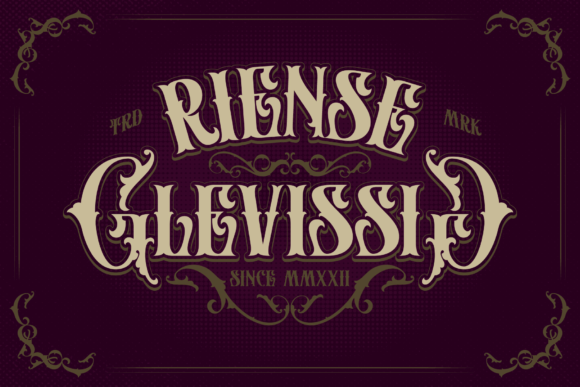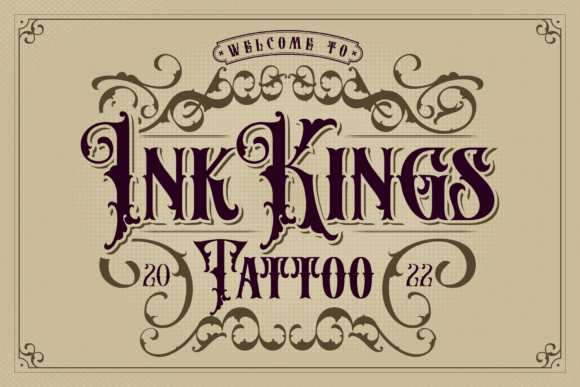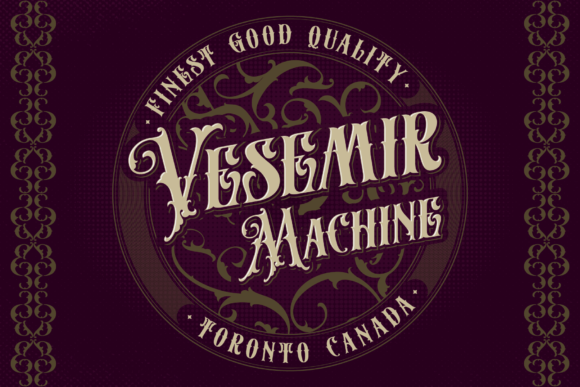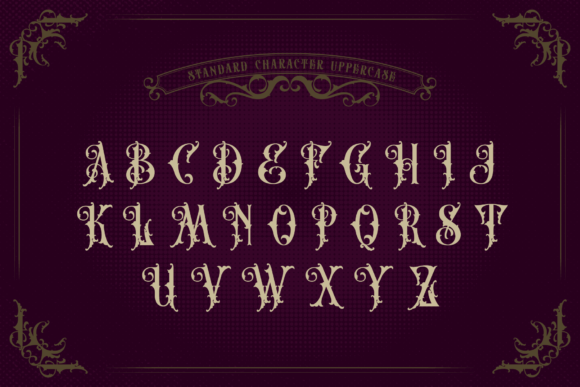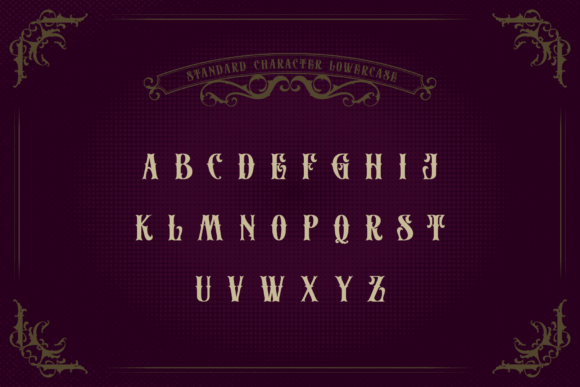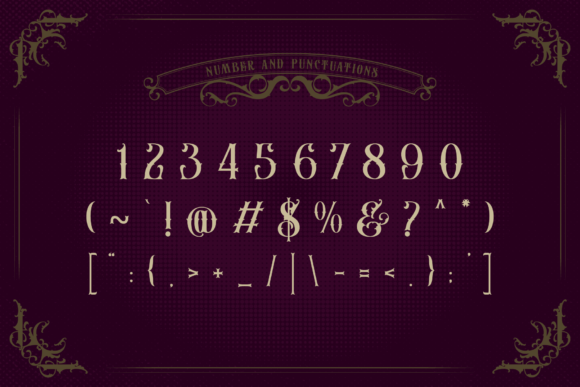
The Birstein Font: A Vintage Blackletter Gem for Retro Designs
I’ll never forget the time I was working on a project to create a label for a craft whiskey brand. My client wanted a design that screamed “vintage” and “sophisticated,” but I was struggling to find the perfect font. That was until I stumbled upon the Birstein font. This cool and vintage blackletter font has been a game-changer for my design projects, and I’m excited to share its awesomeness with you! 😊
An Honest Review of Birstein Font
What I Love About Birstein Font
- ✨ Unique Victorian Style: Birstein font boasts a distinctive Victorian style that’s perfect for creating retro-inspired designs.
- ✅ Highly Versatile: Whether you’re working on branding, liquor labels, or craft projects, Birstein font adapts seamlessly to different design contexts.
- 💯 Excellent Legibility: Despite its ornate design, Birstein font remains surprisingly legible, making it ideal for use in various design applications.
While Birstein font is an excellent choice for many design projects, there are a few minor quirks to be aware of:
- 🤔 Limited Use in Body Text: Due to its ornate design, Birstein font may not be the best choice for lengthy body text. It’s better suited for headings, titles, or short paragraphs.
- ⚠️ Some Glyphs May Require Manual Adjustment: Depending on the design application, some glyphs may require manual adjustment to ensure proper spacing and alignment.
The Backstory of Birstein Font
Birstein font was inspired by the works of Victorian-era typographers, who sought to create fonts that exuded elegance and sophistication. The font’s creator aimed to capture the essence of this era, infusing Birstein font with a sense of nostalgia and refinement.
| Font Name | Birstein Font |
| Author | typealiens |
| What is Birstein font best suited for? | Birstein font is perfect for retro-inspired designs, branding, liquor labels, and craft projects. |
| Is Birstein font difficult to read? | No, Birstein font is surprisingly legible, making it suitable for use in various design applications. |